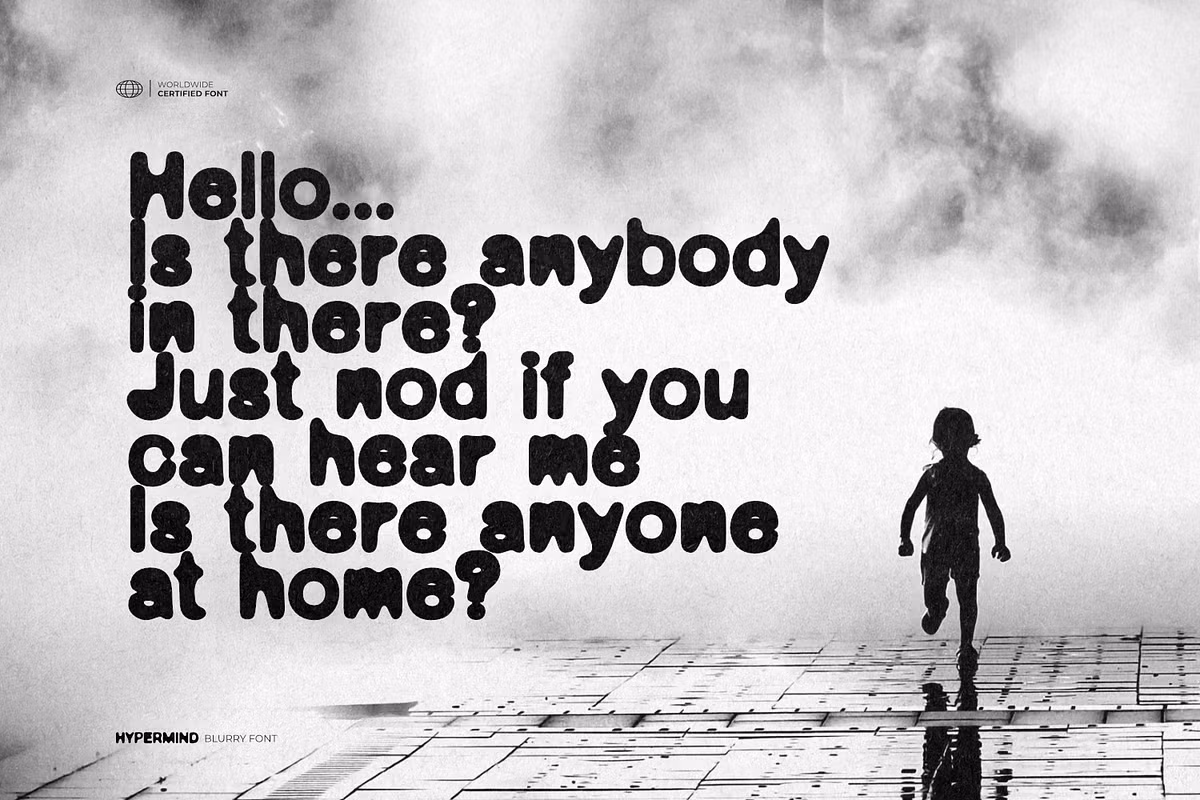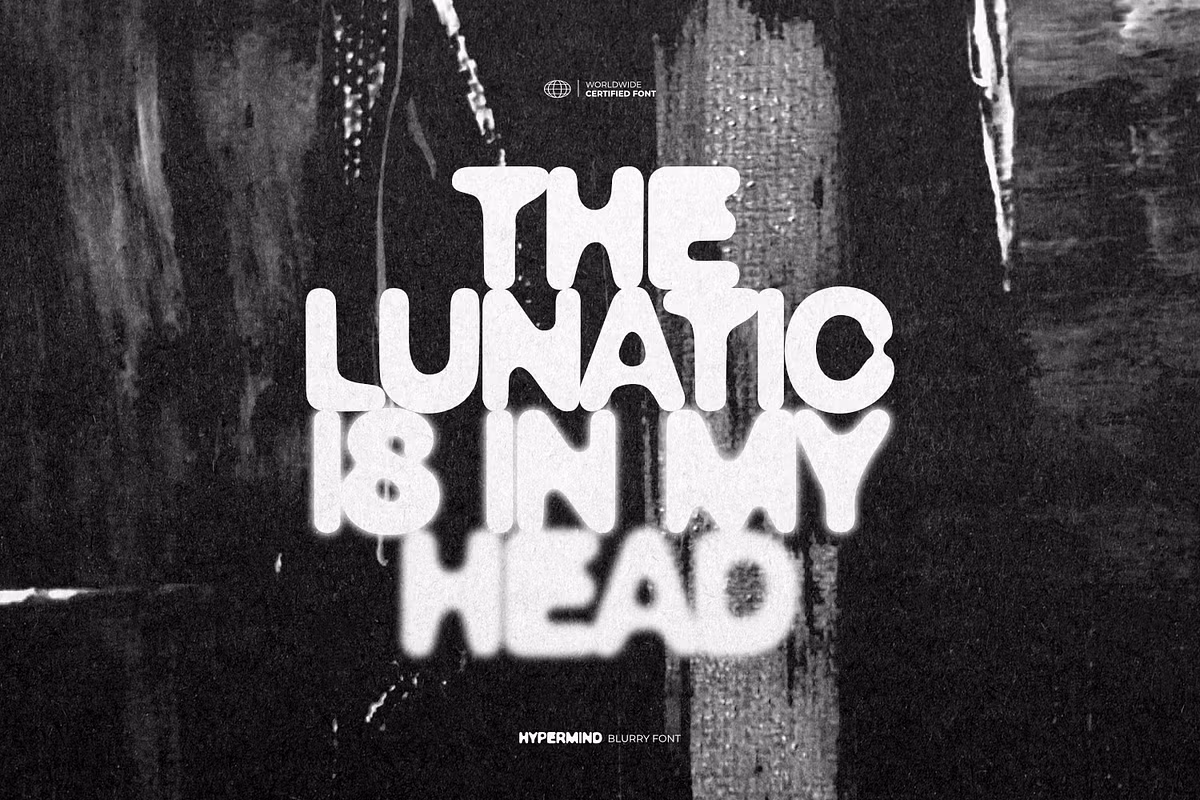
Hypermind: Experimental Blurry Typeface for Bold Creative Designs
Hypermind - Blurry Font
Hypermind: Experimental Blurry Typeface for Bold Creative Designs
Introducing Hypermind: A Revolutionary Typeface
Get ready to enter the amazing world of Hypermind, a really cool and different kind of font made by ikiiko. This font is bold, experimental, and totally unique – it’s like nothing you’ve seen before. It’s perfect for creators who love to try new things and aren’t afraid to be a little crazy. The edges of the letters look all blurry and the shapes seem to move, which gives it a really dynamic and alive feel.
Blurry and dynamic typeface sample of Hypermind
An example of the unique Hypermind typeface.
Hypermind is all about playing with how we see things and pushing the limits of what typography can do. It’s like a work of art that’s always changing and moving, and it’s sure to add a touch of excitement to any project. With its quirky style and energetic vibe, Hypermind is the perfect choice for anyone who wants to make a statement and stand out from the crowd. So why not give it a try and see what kind of amazing things you can create with this incredible font?
Design Style: Embracing the Blurry Aesthetic
The look of Hypermind is really cool – it’s all blurry and dreamy, which makes it super interesting to look at. They’ve made each letter really carefully, with textures that look like old ink and mistakes that happened when printing, so it feels kind of real and a little bit weird. This font is different from the usual perfect shapes you see, it’s like a mix of messy and perfect, and it’s asking you to join a world where things aren’t always in order, but that’s what makes it exciting.
The Hypermind typeface embodies a trippy and edgy style, making it a perfect choice for designers looking to make a bold statement. The fluidity and movement within the letters create a sense of tension and visual overload that captivates the viewer’s attention.
Close-up view of Hypermind typeface features
Detailed view showcasing the typeface’s unique features.
Character Set and Features
Hypermind has a big collection of characters – it’s got uppercase and lowercase letters, numbers, and all sorts of punctuation marks. This means you can use it for lots of different design projects. Plus, it’s got some extra characters built in, so you can easily swap them out to give your design a really cool, quirky look – you know, that blurry and unstable vibe that Hypermind is all about.
• Uppercase and Lowercase: Provides a full array of letters for diverse text needs.
• Numbers and Punctuation: Complete your designs with all necessary numeric and symbolic characters.
• Alternates: Create unique variations and add depth to your typography.
• Multilingual Support: Expand your audience with support for various languages.
Use Cases: Where Hypermind Shines
The unique and innovative approach of Hypermind lends itself perfectly to a wide range of imaginative and artistic uses. Let’s take a look at some of the most notable examples of how it can be applied.
Examples of Hypermind in hipster branding and event posters
Hypermind used in various creative designs.
• Hipster Branding: Perfect for businesses that want to convey a modern, artistic, and edgy brand identity.
• Editorial Headlines: Grab attention in magazines and online publications with headlines that pop.
• Streetwear Graphics: Ideal for apparel designs that need a bold and unconventional touch.
• Event Posters: Make your event stand out with designs that evoke curiosity and excitement.
Pairing Suggestions: Complementing Your Designs
Hypermind’s unique style can be complemented with various design elements to create an even more striking visual impact.